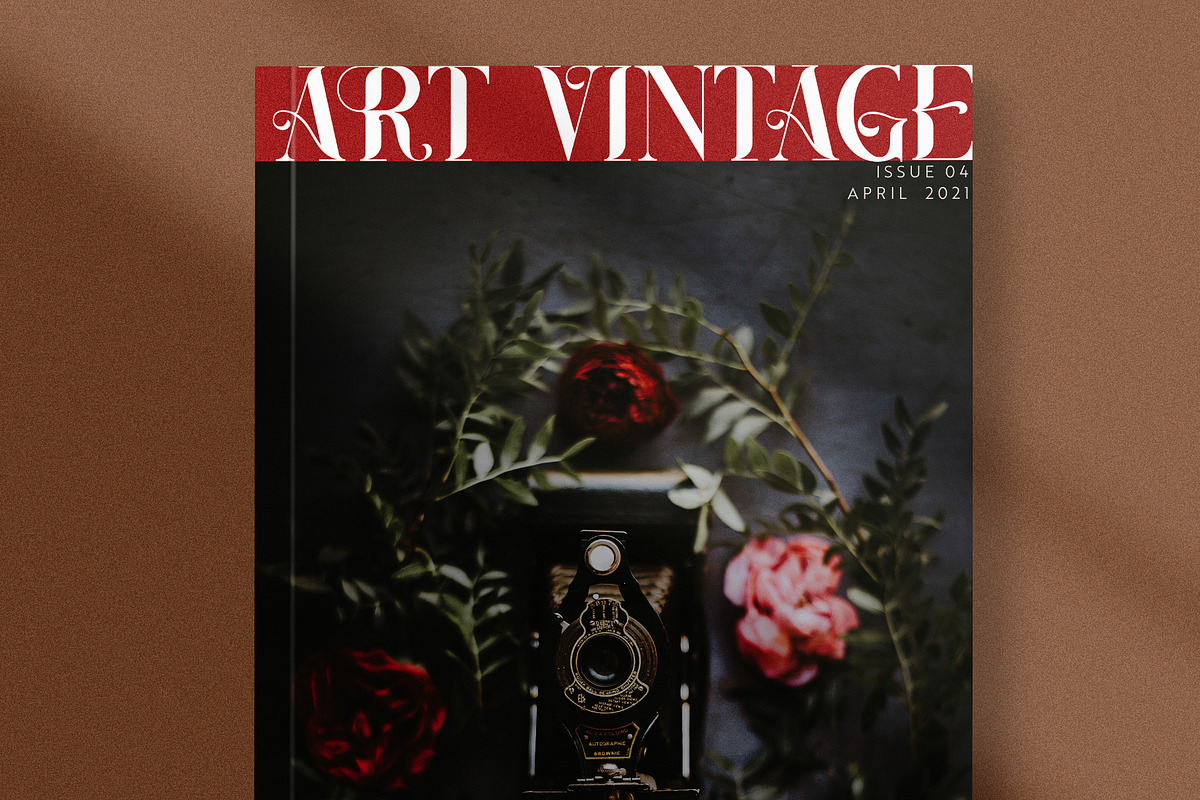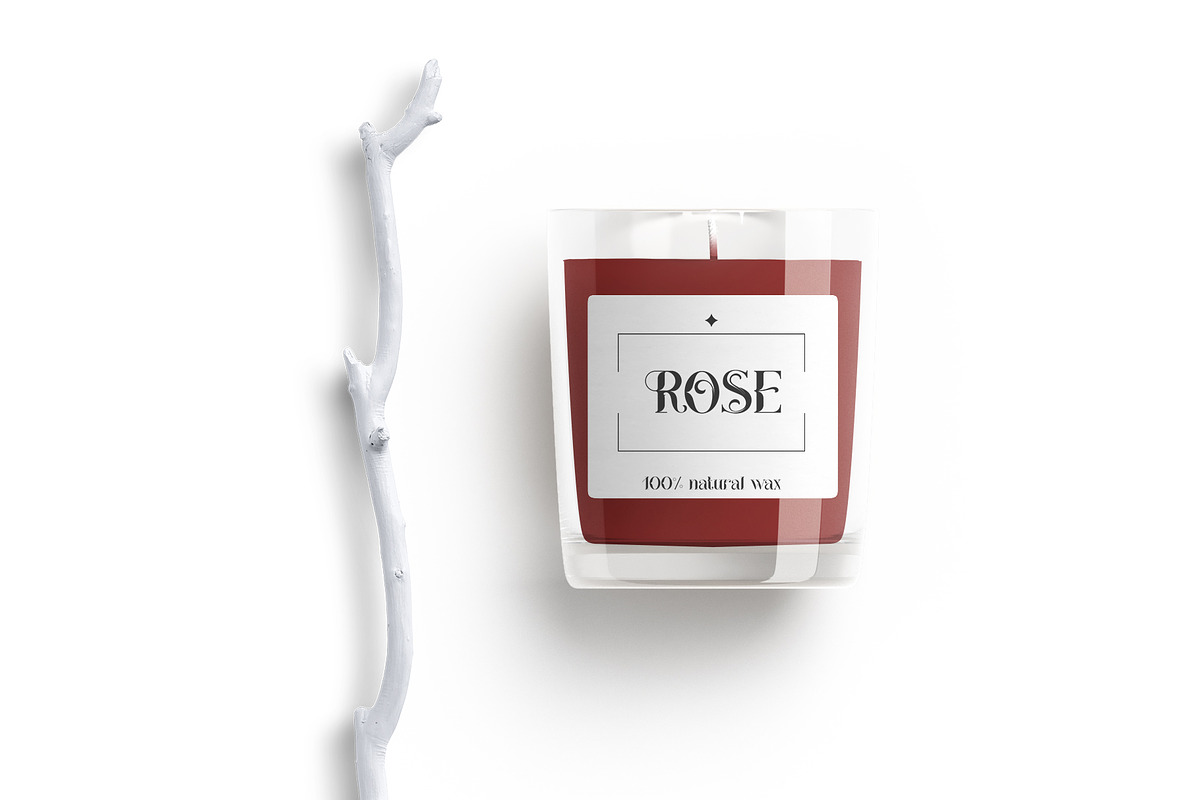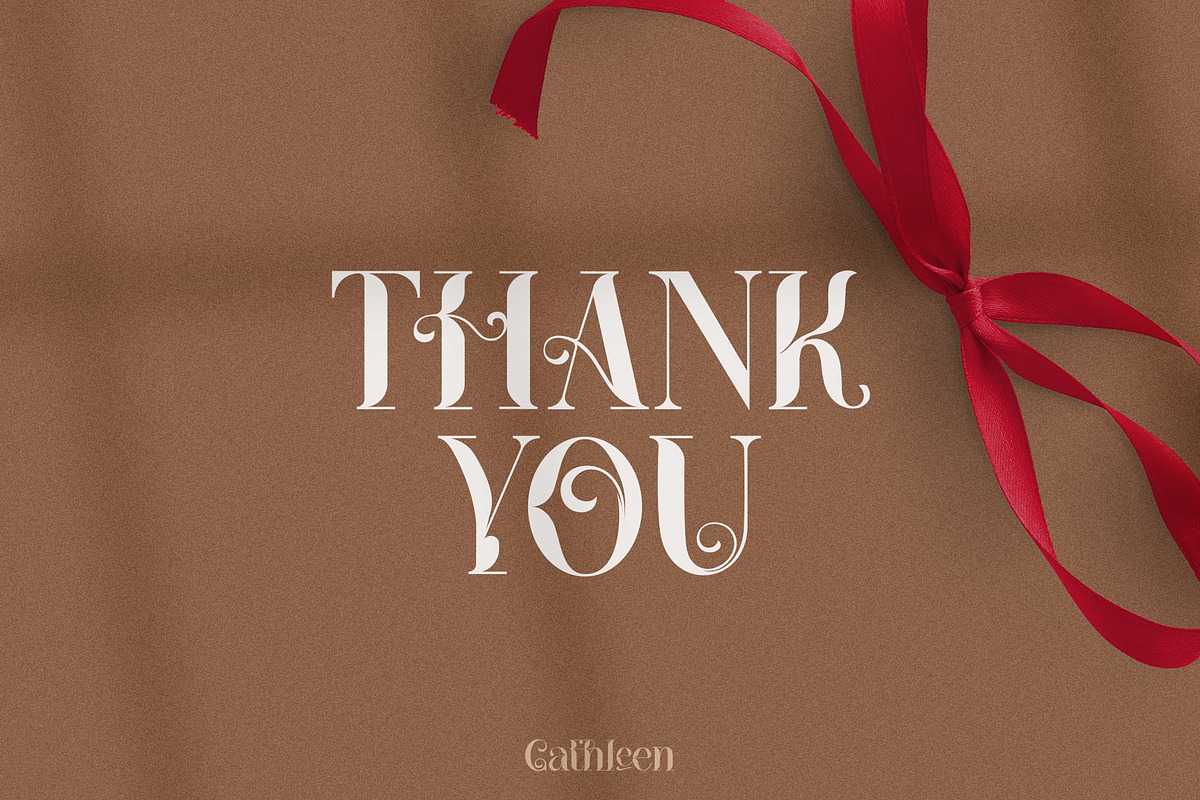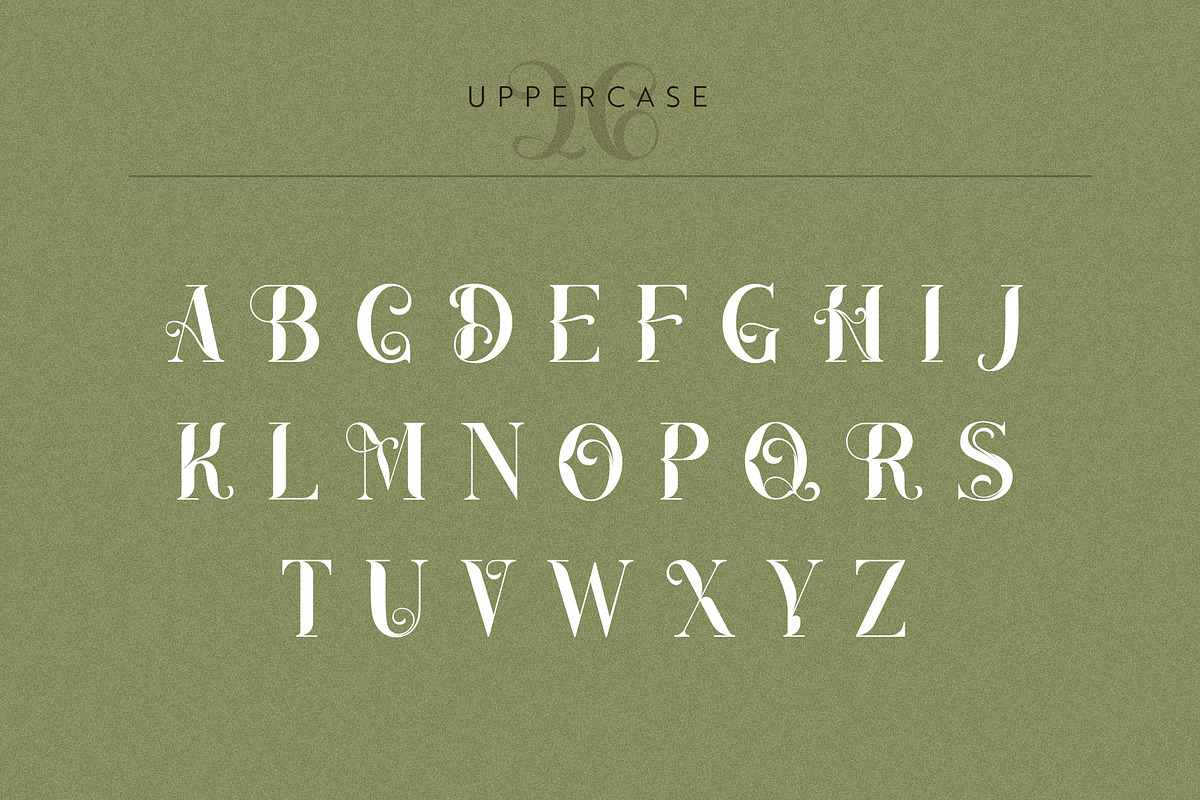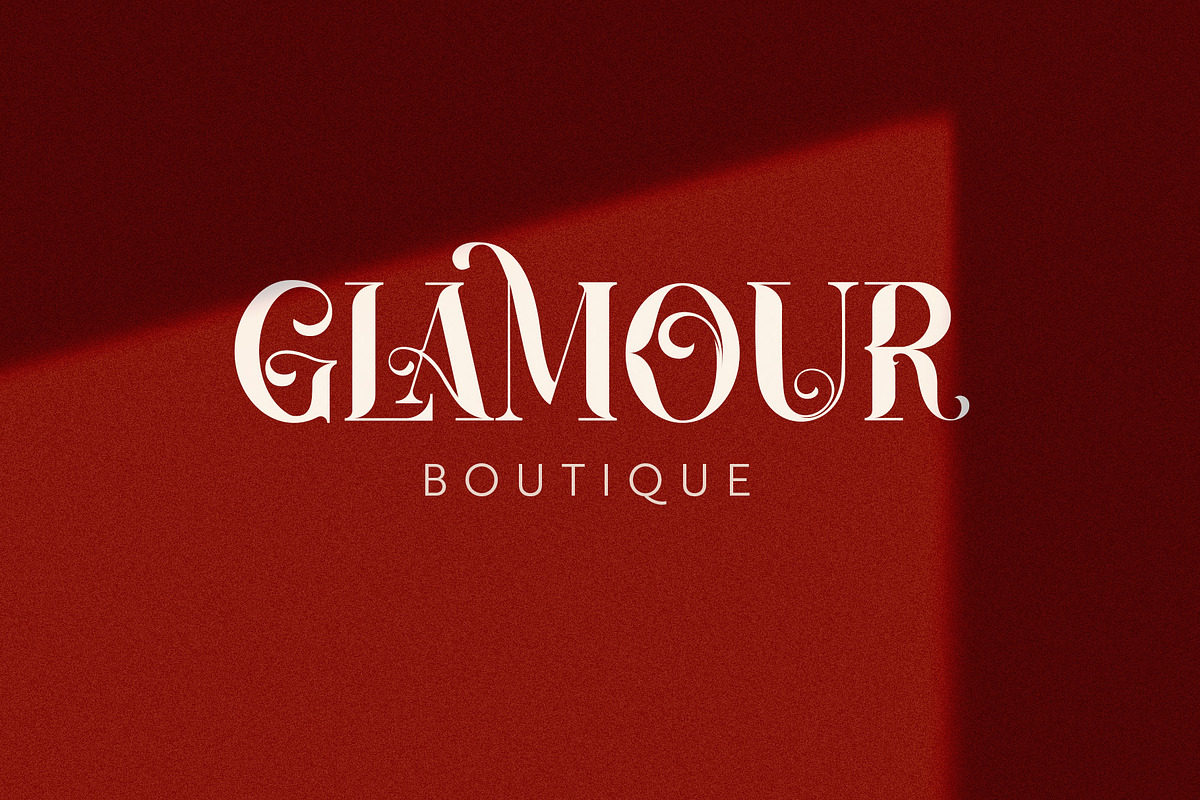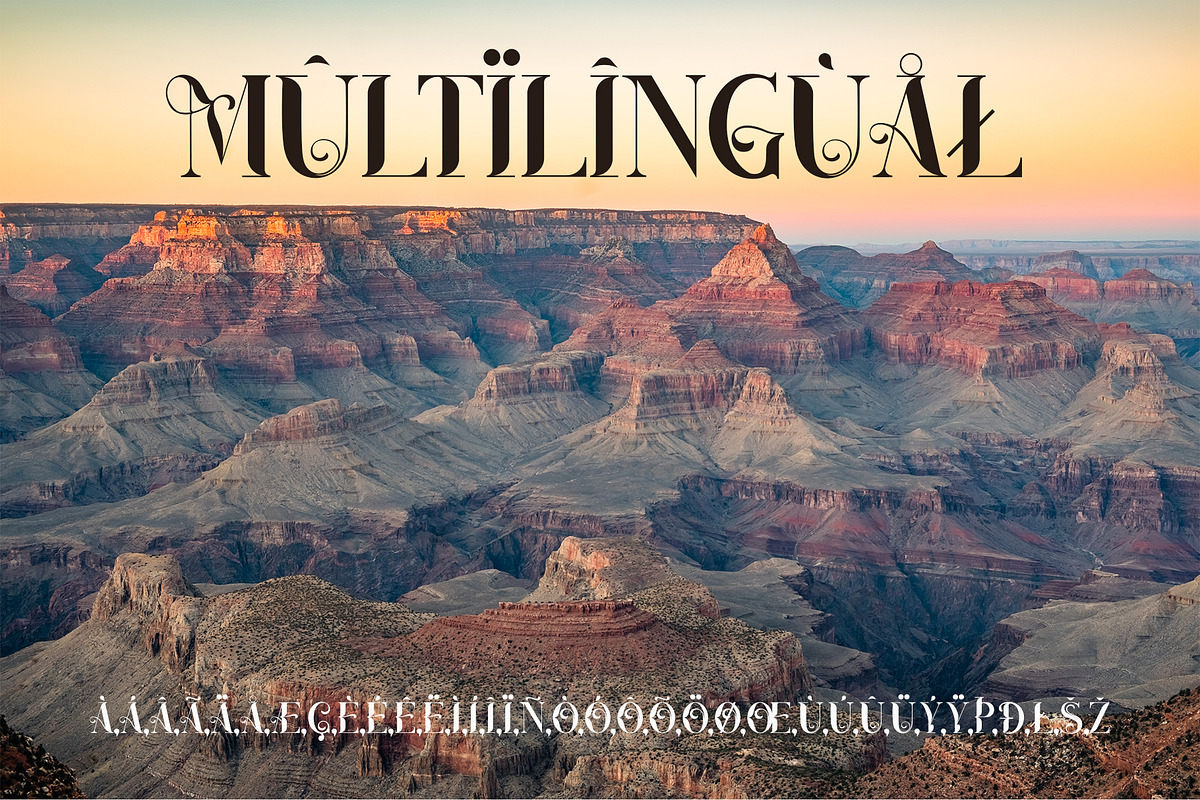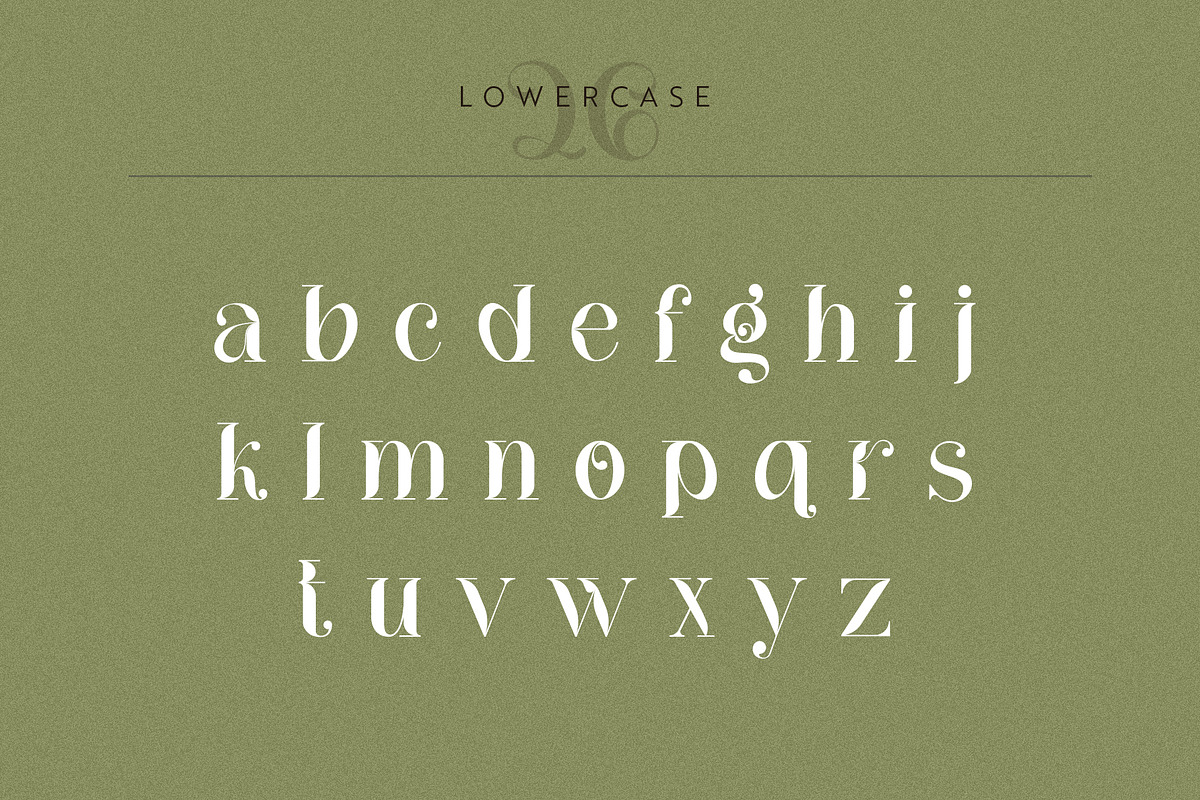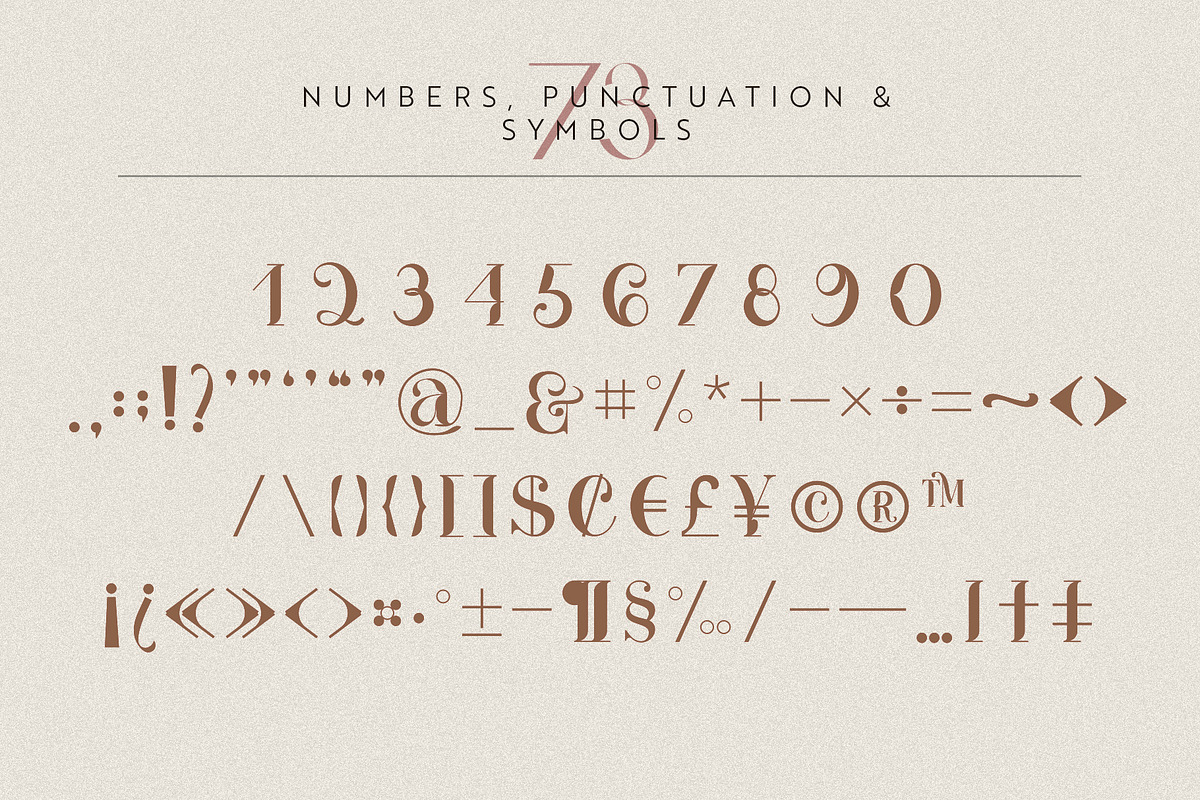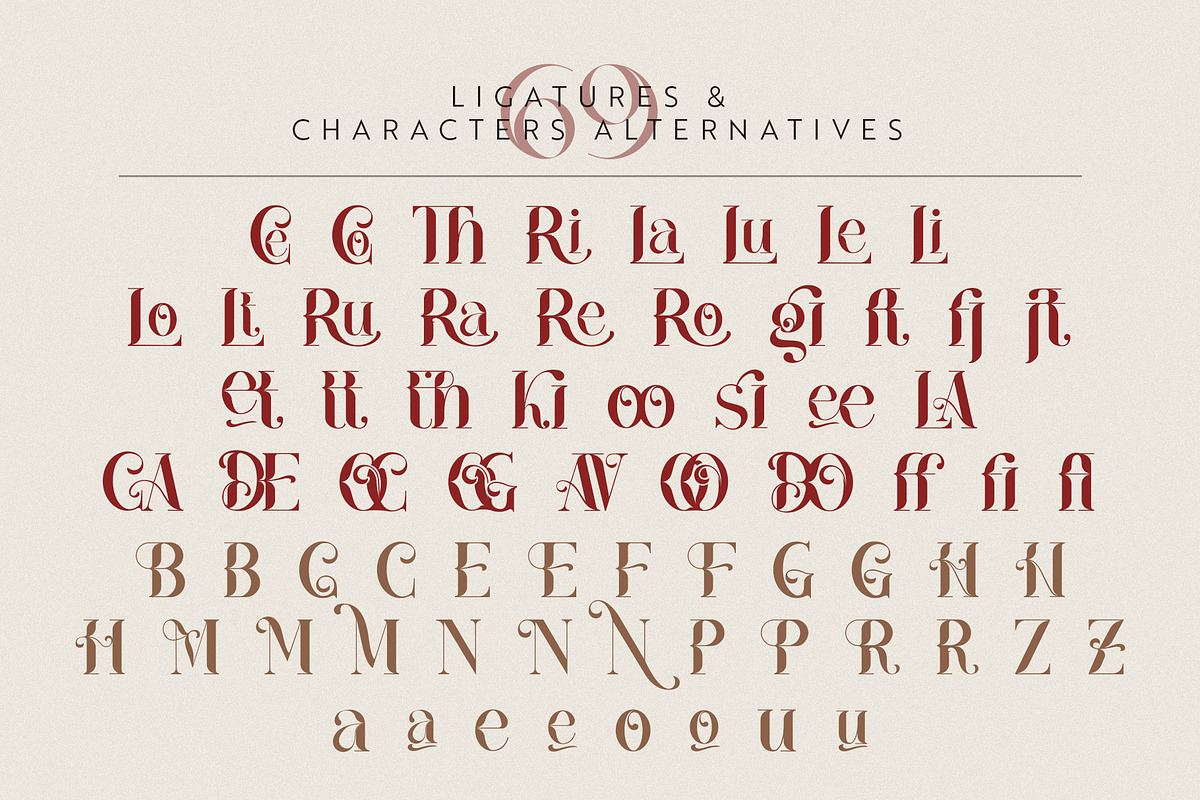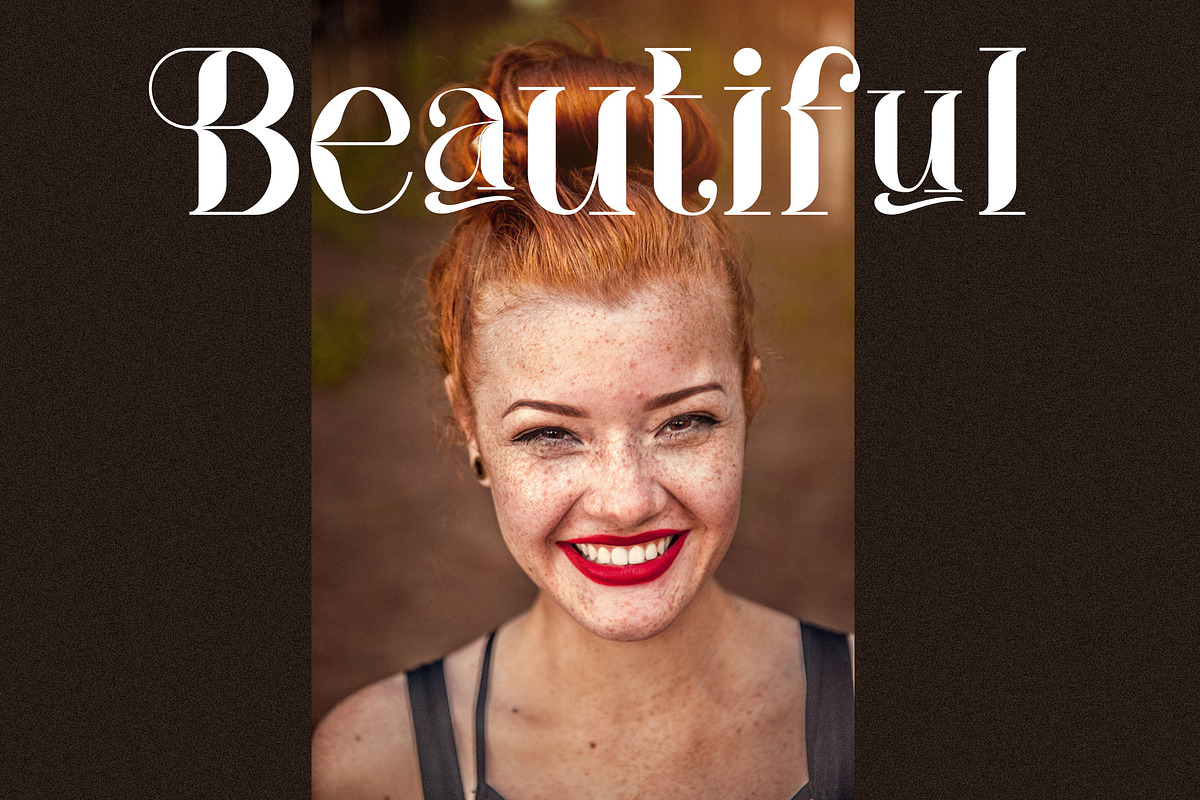
Cathleen|Vintage Ligature Serif Font
Cathleen - new modern vintage ligature serif font. Inspired by classical serif font and vintage typography. Includes high contrast characters, many beautiful ligatures and different characters variants. This font perfect for all kind of design: social media and visual content, web and UI design, posters and art collage, branding and logos, wedding typography, alcohol labels. It will be modern vintage or vintage modern elegance design.
- Character's ligatures;
- Characters's alternatives;
- Multilingual Support.